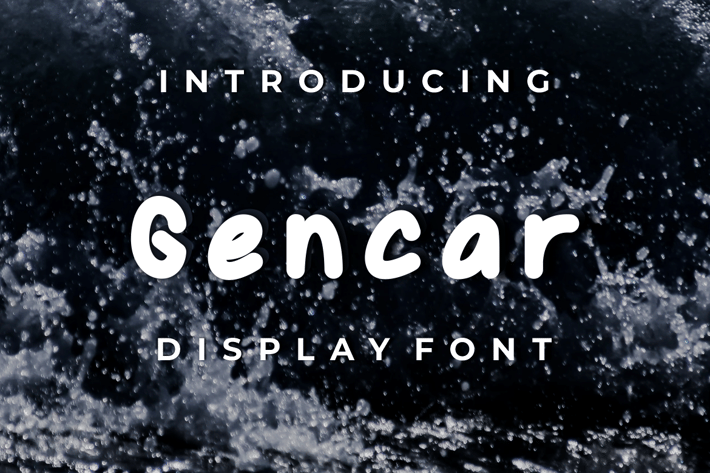
Gencar Font
Introducing our new product Gencar Font - Modern Font
Gencar Font - Modern Font is a bold and authentic display font. The font is suitable for any branding project like logo, t-shirt printing, esport, and many more. outstanding in a wide range of contexts.